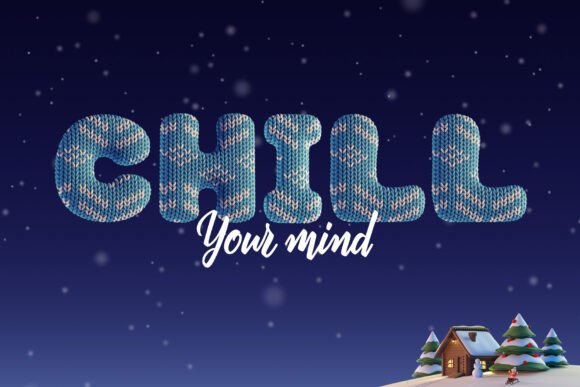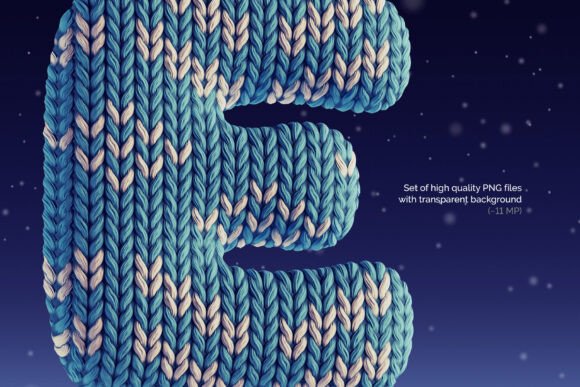
Cozy Winter Font
Introducing **Cozy Winter**, a snug and creative font set. This 3D-rendered, high-quality typeface features knitted fabric with a cozy sweater pattern. It’s a color bitmap OpenType-SVG font, which works just like a regular OTF font. Additionally, the set includes full-resolution PNG files with transparent backgrounds (average resolution is 11 megapixels). Please note that the font supports only the English language and basic punctuation. Be sure to check the screenshot for all available characters.